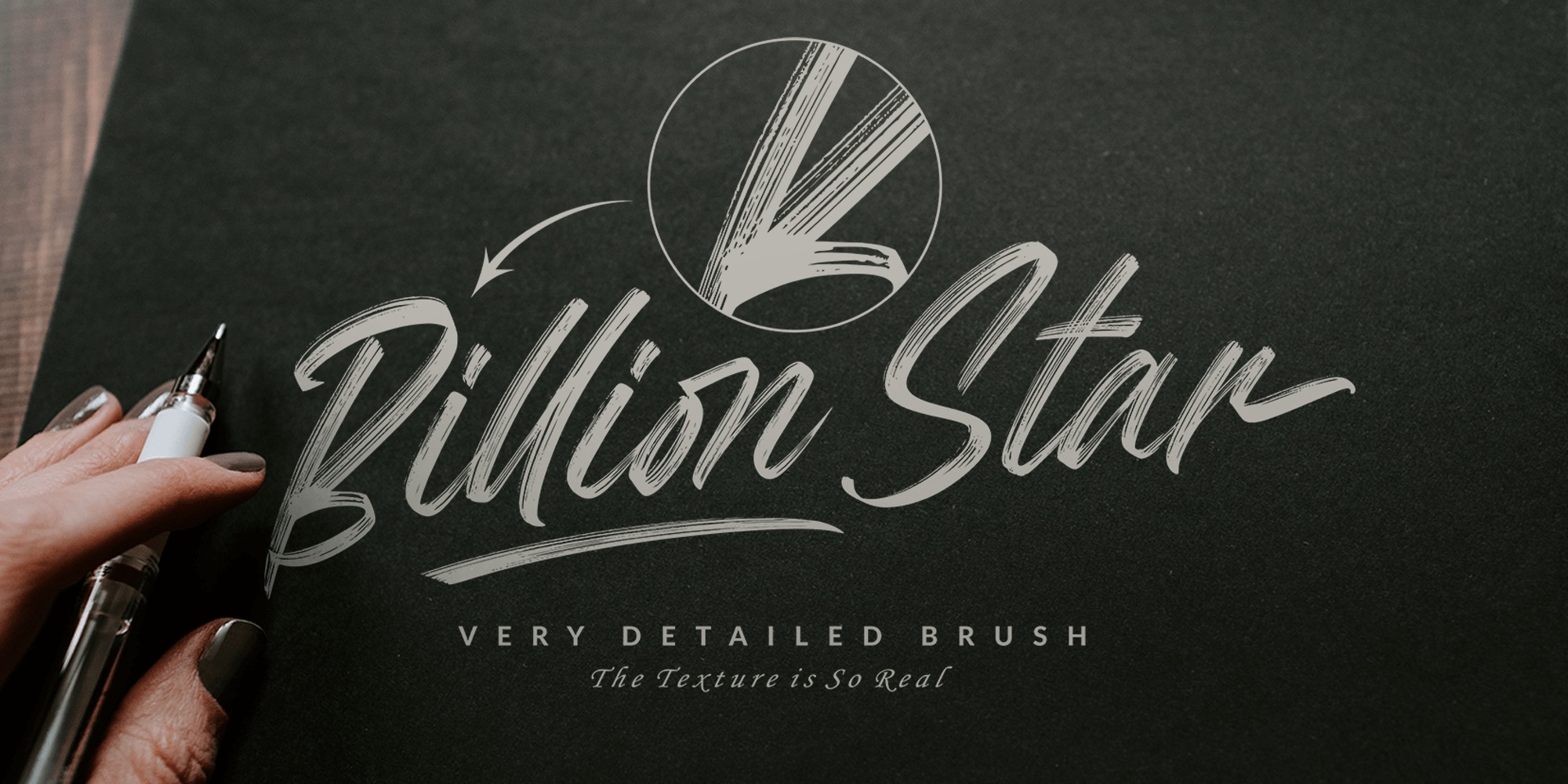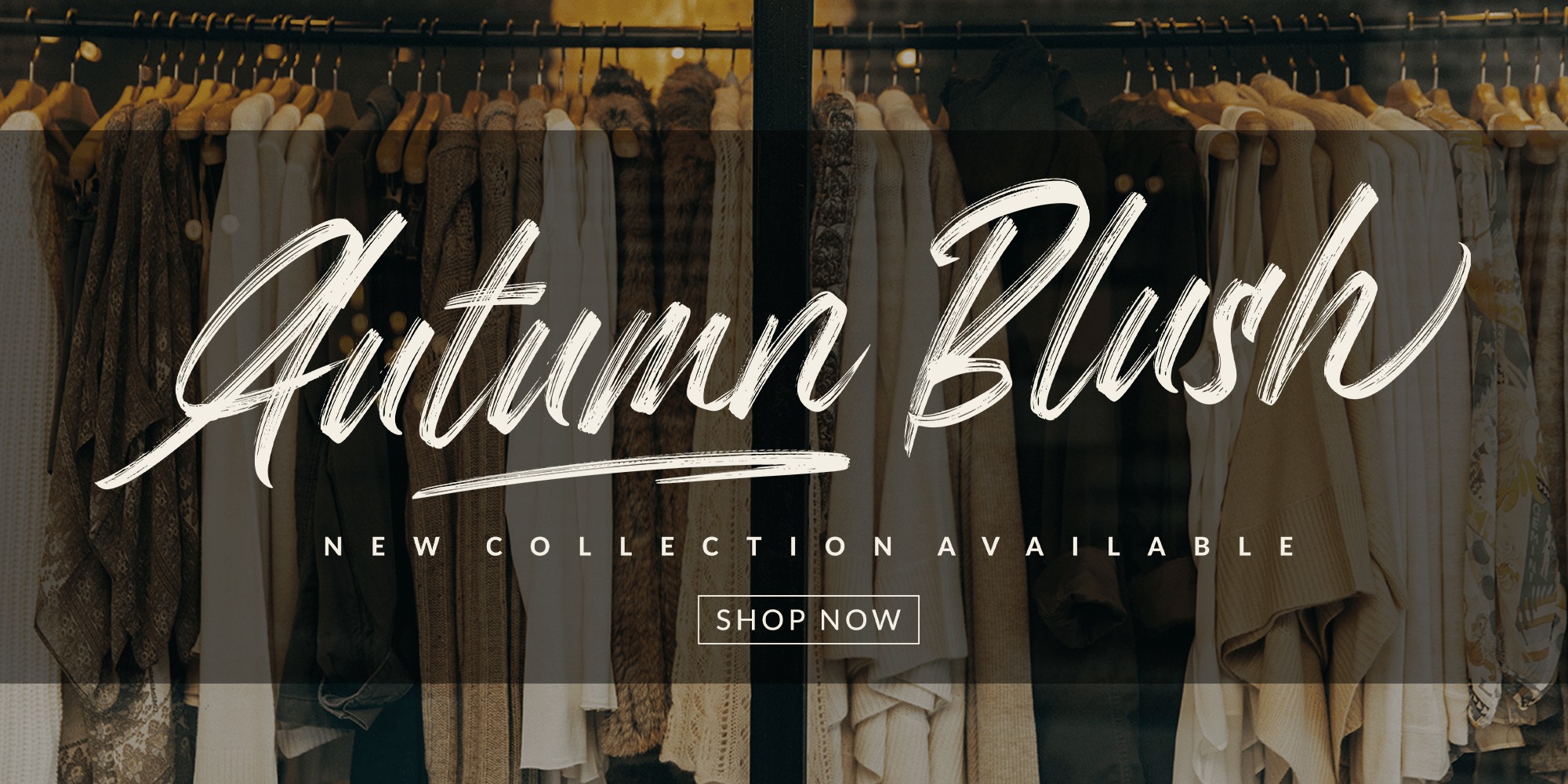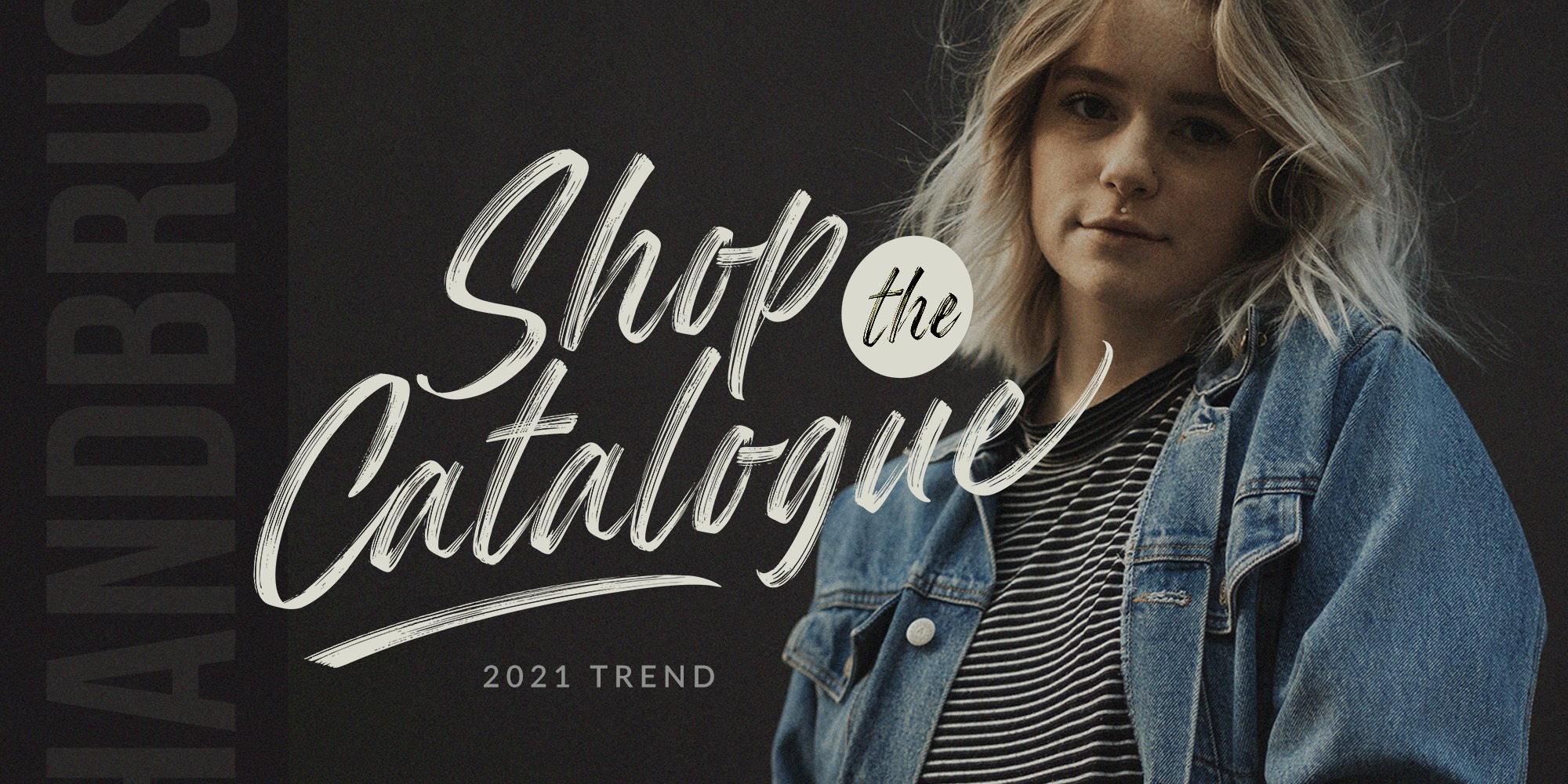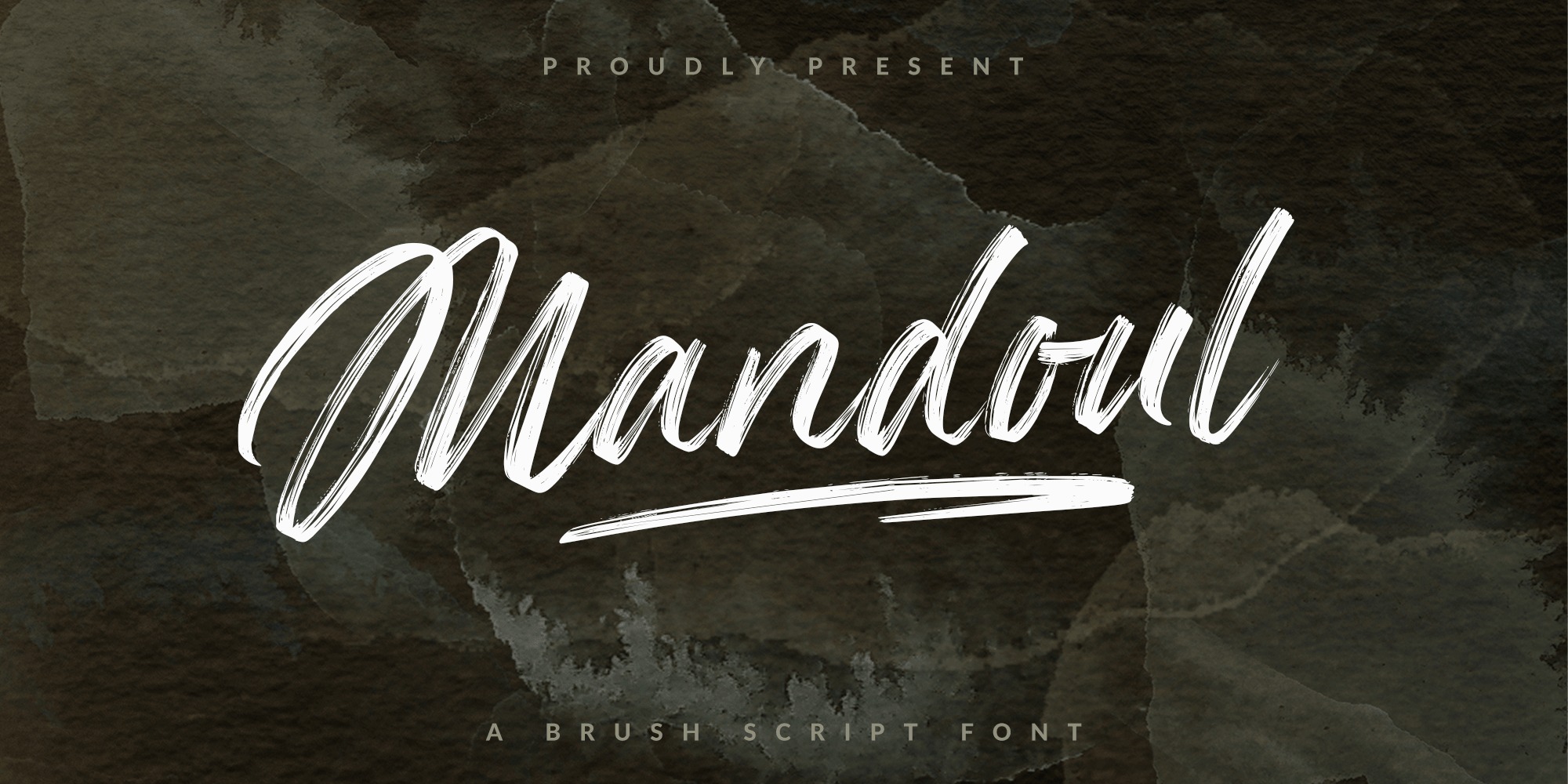
Mandoul Brush Font
This is a natural handmade textured brush text font created by Mans Greback with an irregular base line. With extra attention to quick letterforms and sharp details, this brush typeface turns any graphic project into a vivid and optimistic work. Its handwritten paintbrush strokes are created with real brush and paint, ensuring a genuine and truly artistic typographic design. It has extensive lingual support, covering all Latin-based languages, from North Europe to South Africa, from America to South-East Asia. It contains all characters and symbols you’ll ever need, including all punctuation and numbers.